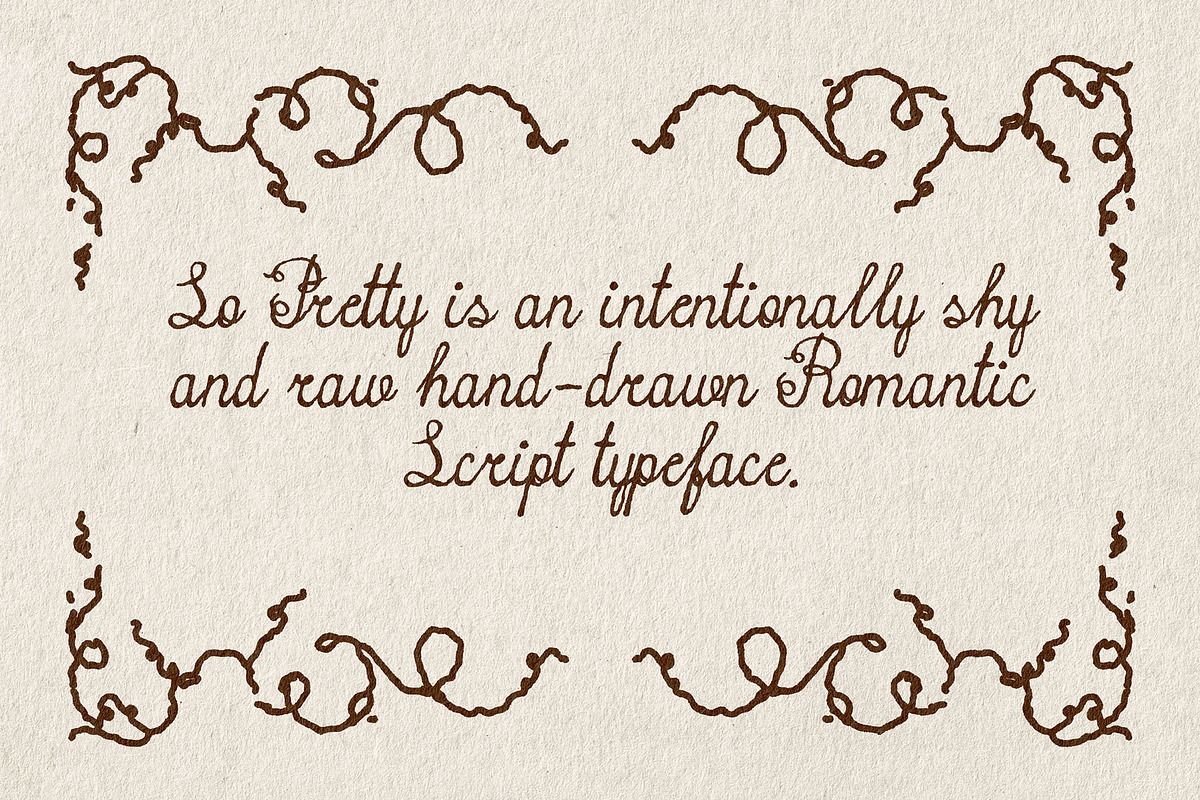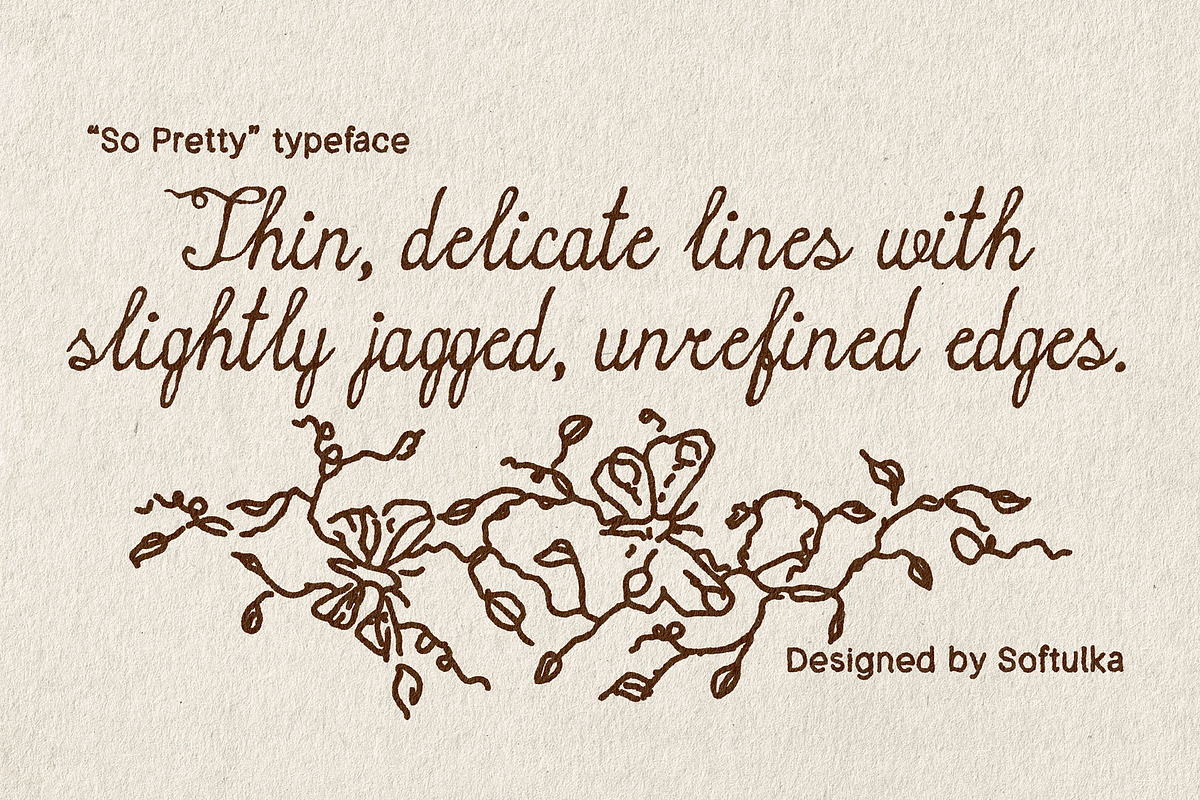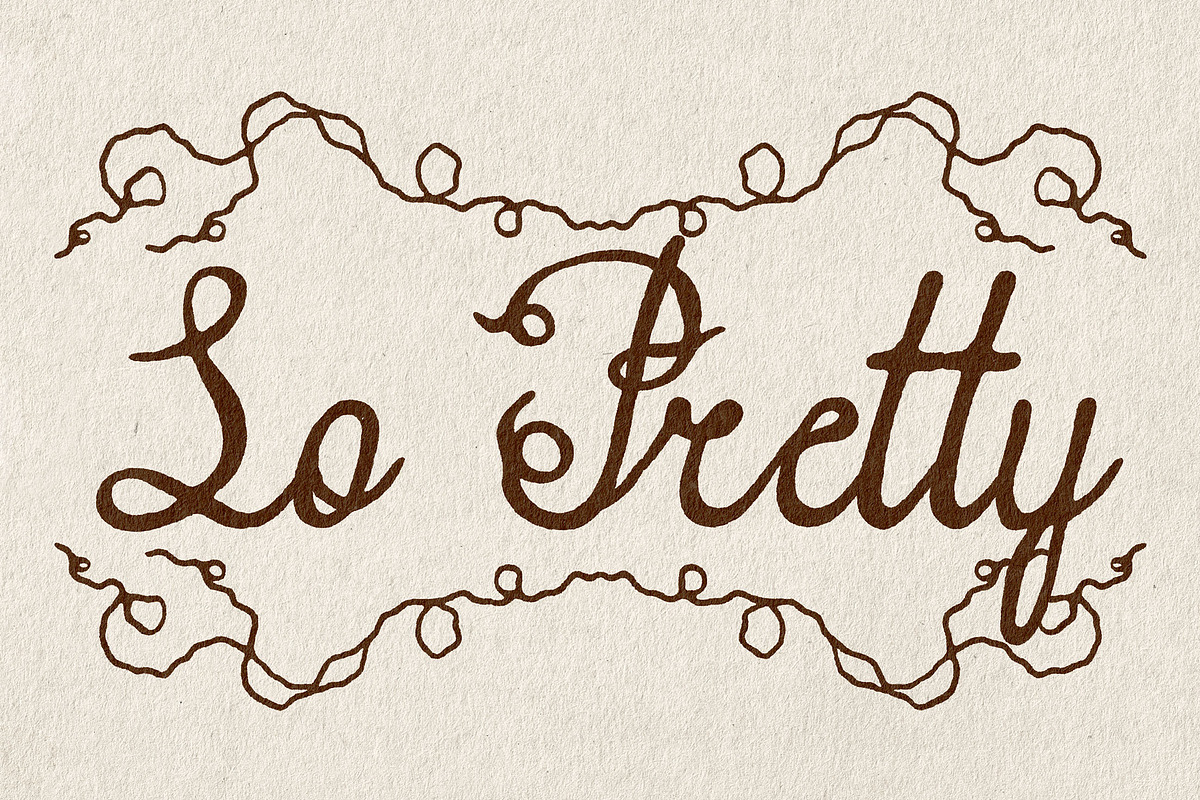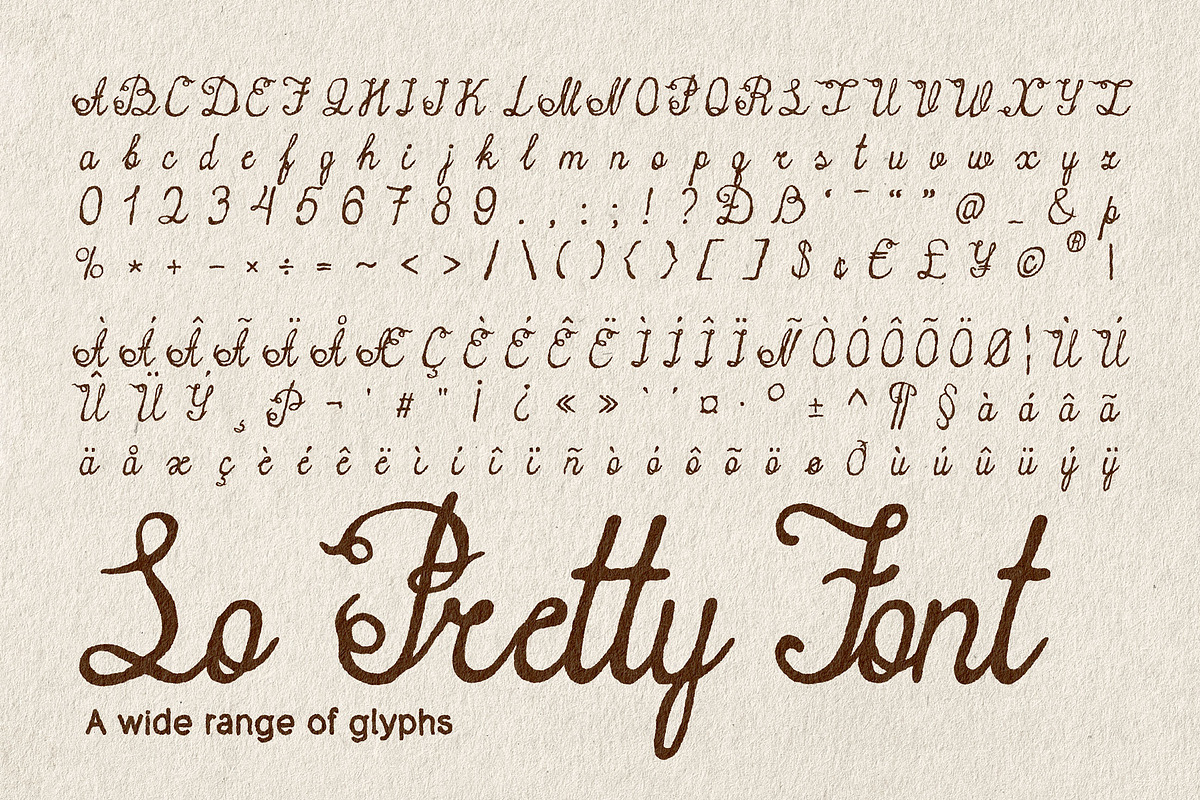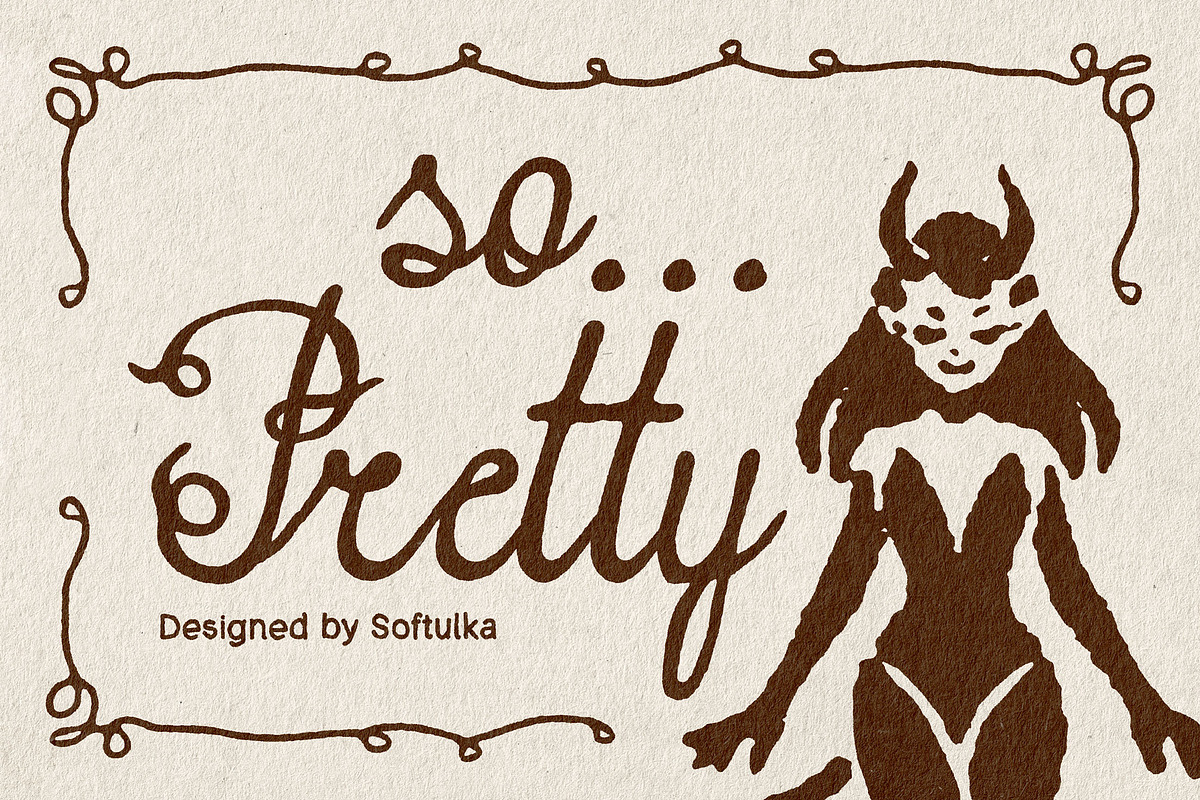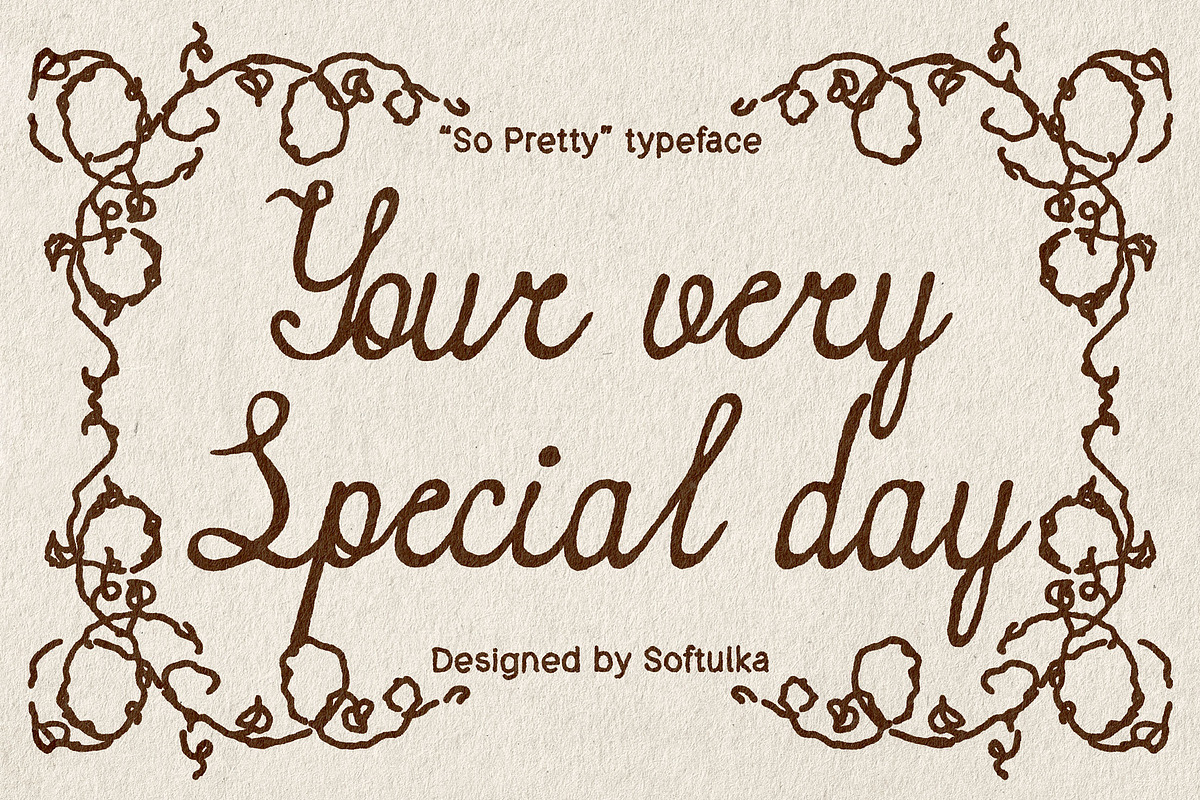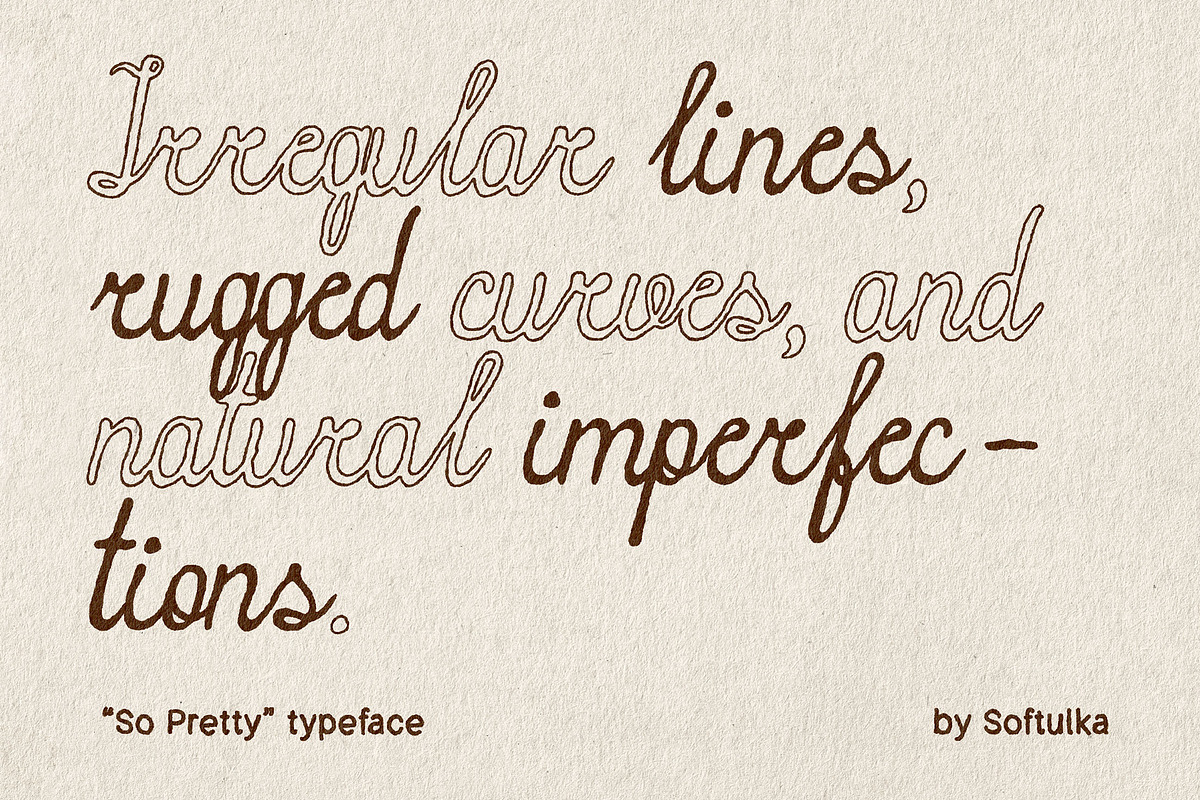
So Pretty Typeface
So Pretty is an intentionally shy and raw hand-drawn Romantic Script typeface. It features thin, delicate lines with slightly jagged, unrefined edges that create a vulnerable, human feel. This font balances a rough, "imperfect" texture with a gentle, airy flow, making it ideal for intimate editorial designs, moody packaging, and branding that seeks an honest, handcrafted aesthetic over digital perfection.